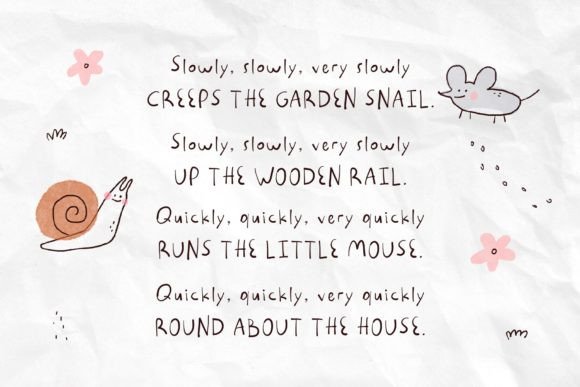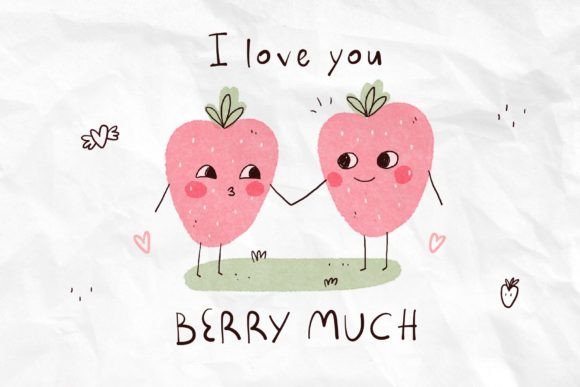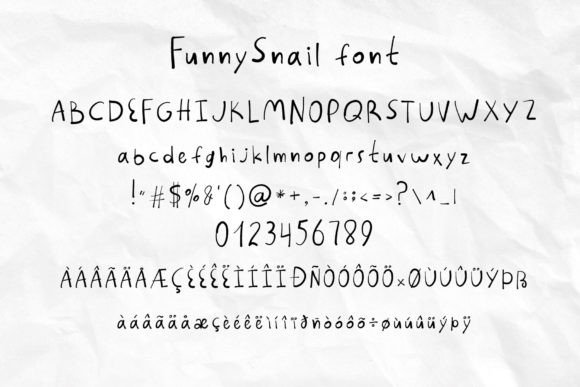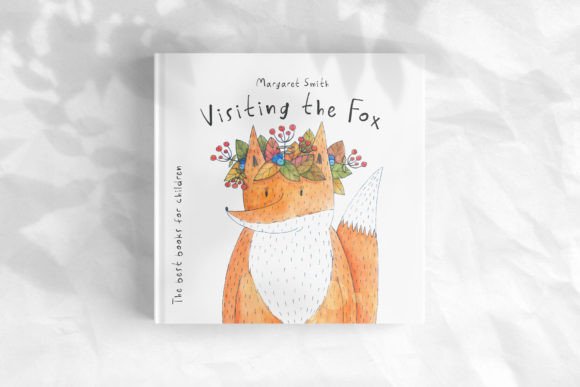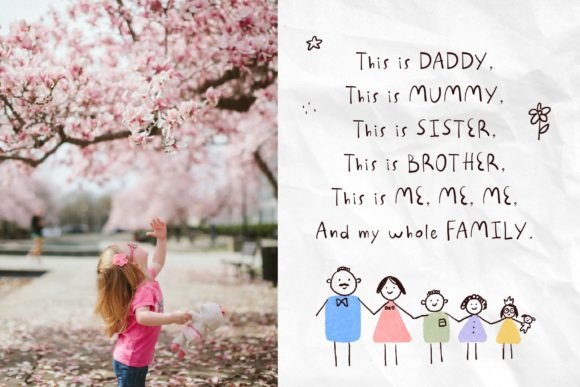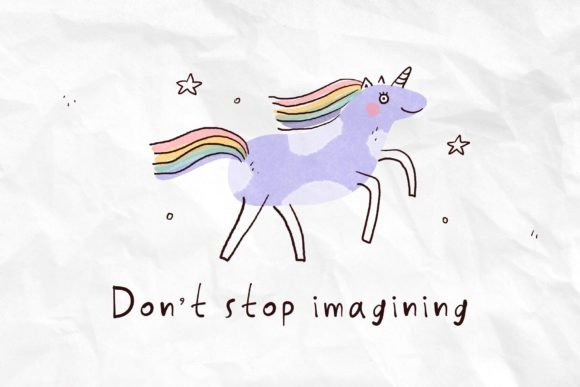
Introducing Funnysnail Font: The Playful Typeface for Creative Projects
Are you tired of using the same old fonts for your creative projects? Look no further than Funnysnail Font, a charming hand-drawn typeface that’s perfect for adding a touch of whimsy to your designs. In this article, we’ll dive into the world of Funnysnail Font and explore its features, uses, and benefits for designers and crafters.
What is Funnysnail Font?
Funnysnail Font is a unique, hand-drawn font that’s designed to evoke a sense of childhood wonder and playfulness. Its childish style makes it an ideal choice for projects that require a fun and carefree vibe. Whether you’re working on a book, article, social media post, or merchandise, Funnysnail Font is sure to add a dash of personality to your design.
Key Features of Funnysnail Font
- Hand-drawn design: Funnysnail Font boasts a beautifully crafted, hand-drawn design that’s full of character and charm.
- Childish style: Its playful, childish style makes it perfect for projects that require a fun and youthful vibe.
- Versatile: Funnysnail Font can be used for a wide range of projects, from books and articles to social media posts and merchandise.
- Easy to read: Despite its playful design, Funnysnail Font is easy to read, making it a great choice for body text and headings.
Uses for Funnysnail Font
Funnysnail Font is an incredibly versatile typeface that can be used for a wide range of projects. Here are some ideas to get you started:
- Book design: Add a touch of whimsy to your book covers, illustrations, and text with Funnysnail Font.
- Social media graphics: Use Funnysnail Font to create eye-catching social media graphics, posts, and stories that are sure to engage your audience.
- T-shirts and merchandise: Funnysnail Font is a great choice for designing T-shirts, mugs, and other merchandise that requires a fun and playful vibe.
- Interior posters: Add a dash of personality to your interior posters, flyers, and brochures with Funnysnail Font.
- Articles and blogs: Use Funnysnail Font to add a touch of whimsy to your articles and blog posts.
Funnysnail Font offers a range of benefits for designers and crafters, including:
- Instant recognition: Funnysnail Font’s unique design makes it instantly recognizable, adding a touch of personality to your projects.
- Time-saving: With Funnysnail Font, you can create professional-looking designs in no time, saving you hours of design work.
- Endless creative possibilities: Funnysnail Font’s versatility means you can use it for a wide range of projects, from digital designs to print materials.
- Easy to pair: Funnysnail Font pairs well with a range of other fonts, making it easy to create stunning font combinations.
| Font Name | Funnysnail Font |
| Author | Juliya Kochkanyan |
In conclusion, Funnysnail Font is a unique and versatile typeface that’s perfect for designers and crafters looking to add a touch of whimsy to their projects. Its hand-drawn design, childish style, and ease of use make it an ideal choice for a wide range of creative projects. Whether you’re working on a book, article, social media post, or merchandise, Funnysnail Font is sure to bring a dash of personality and fun to your design.